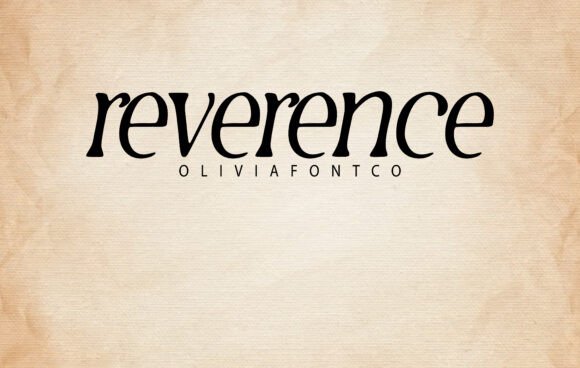
Reverence Font: Elevate Your Creative Projects with Elegance and Sophistication
Are you looking for a font that can add a touch of elegance and sophistication to your creative projects? Look no further than the Reverence Font. Expertly designed to be a true favorite, this font has the potential to take your creative ideas to the highest level. With its exceptional legibility and versatility, Reverence Font is perfect for a wide range of designs, from magazine headlines to wedding invitations, and everything in between.
What Makes Reverence Font Stand Out?
Reverence Font is more than just a font – it’s a design statement. Its unique and stylish design makes it perfect for creating visually stunning designs that capture attention and leave a lasting impression. Here are some key features that make Reverence Font a standout:
- Legibility: Reverence Font is designed to be highly legible, making it perfect for both title and body text. Its clear and crisp lines ensure that your text is easy to read, even at small sizes.
- Versatility: Reverence Font is incredibly versatile, making it suitable for a wide range of design projects. Whether you’re creating a magazine headline, a social media post, or a wedding invitation, this font is sure to impress.
- Elegance: Reverence Font exudes elegance and sophistication, making it perfect for designs that require a touch of luxury and refinement.
The Perfect Font for Creative Projects
Reverence Font is the perfect choice for creative projects that require a font that can keep up with your imagination. Here are some design ideas where Reverence Font would shine:
- Magazine Headlines: Create eye-catching magazine headlines that grab attention and draw readers in.
- T-Shirts: Design stylish and fashionable t-shirts that feature Reverence Font as the main attraction.
- Social Media: Elevate your social media presence with Reverence Font, perfect for creating stunning social media graphics and posts.
- Branding: Use Reverence Font to create a strong brand identity that exudes elegance and sophistication.
- Wedding Invitations: Create beautiful and elegant wedding invitations that feature Reverence Font.
- Cards: Design stunning greeting cards, invitations, and more with Reverence Font.
Why Choose Reverence Font?
With so many fonts available, why choose Reverence Font? Here are just a few reasons why Reverence Font stands out from the crowd:
- Unique Design: Reverence Font features a unique and stylish design that sets it apart from other fonts.
- High-Quality: Reverence Font is expertly designed and crafted to ensure high-quality results.
- Versatile: Reverence Font is incredibly versatile, making it suitable for a wide range of design projects.
Tips for Using Reverence Font
To get the most out of Reverence Font, here are some tips to keep in mind:
- Experiment with Sizes: Reverence Font looks great at a variety of sizes, so don’t be afraid to experiment to find the perfect size for your design.
- Play with Colors: Reverence Font looks great in a range of colors, so try experimenting with different colors to find the perfect fit for your design.
- Mix and Match: Don’t be afraid to mix and match Reverence Font with other fonts to create a unique and visually stunning design.
In conclusion, Reverence Font is an exceptional font that has the potential to elevate your creative projects to new heights. With its unique design, high-quality craftsmanship, and versatility, Reverence Font is perfect for a wide range of design projects. Whether you’re a seasoned designer or just starting out, Reverence Font is sure to become a favorite in your design arsenal.